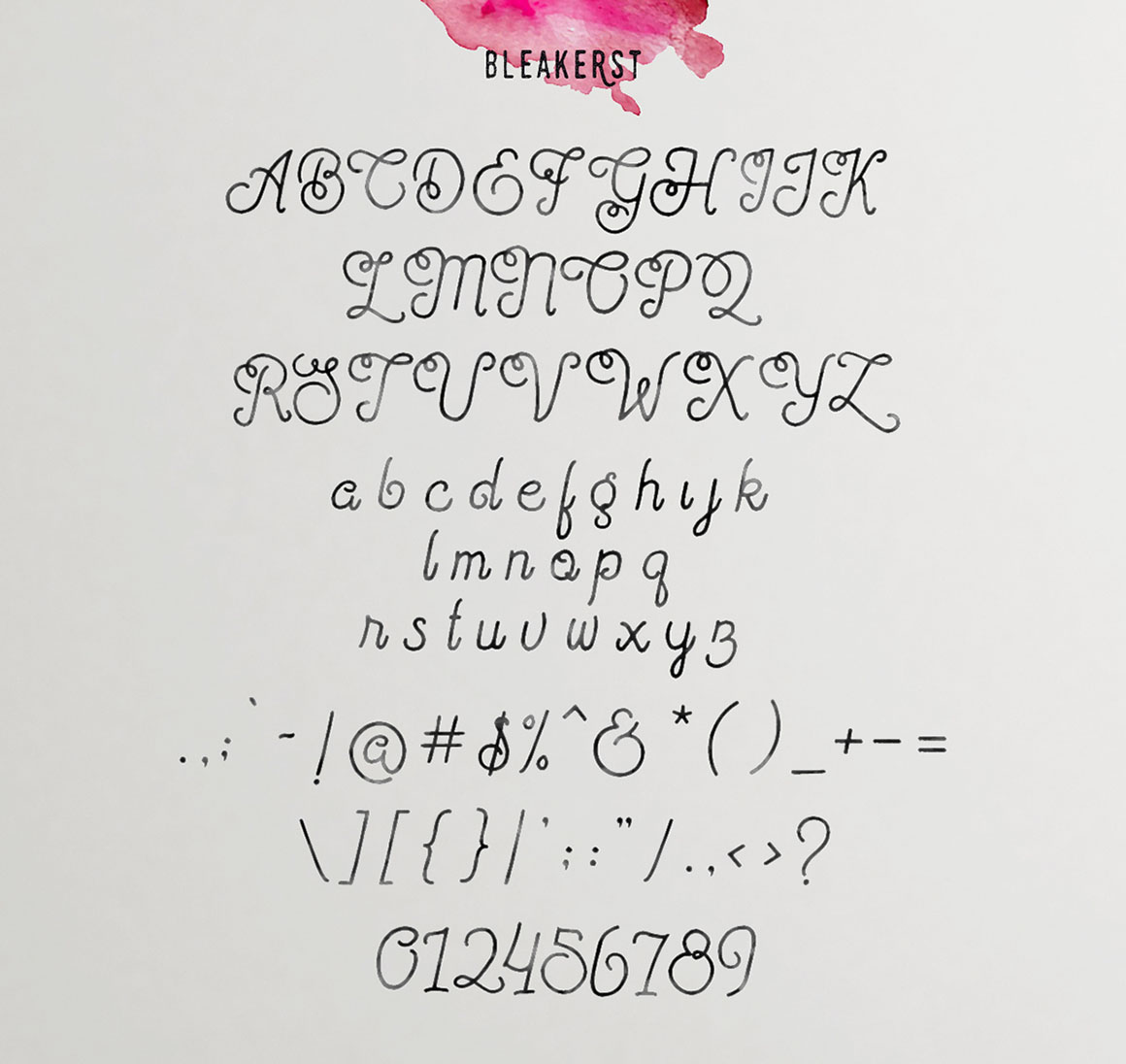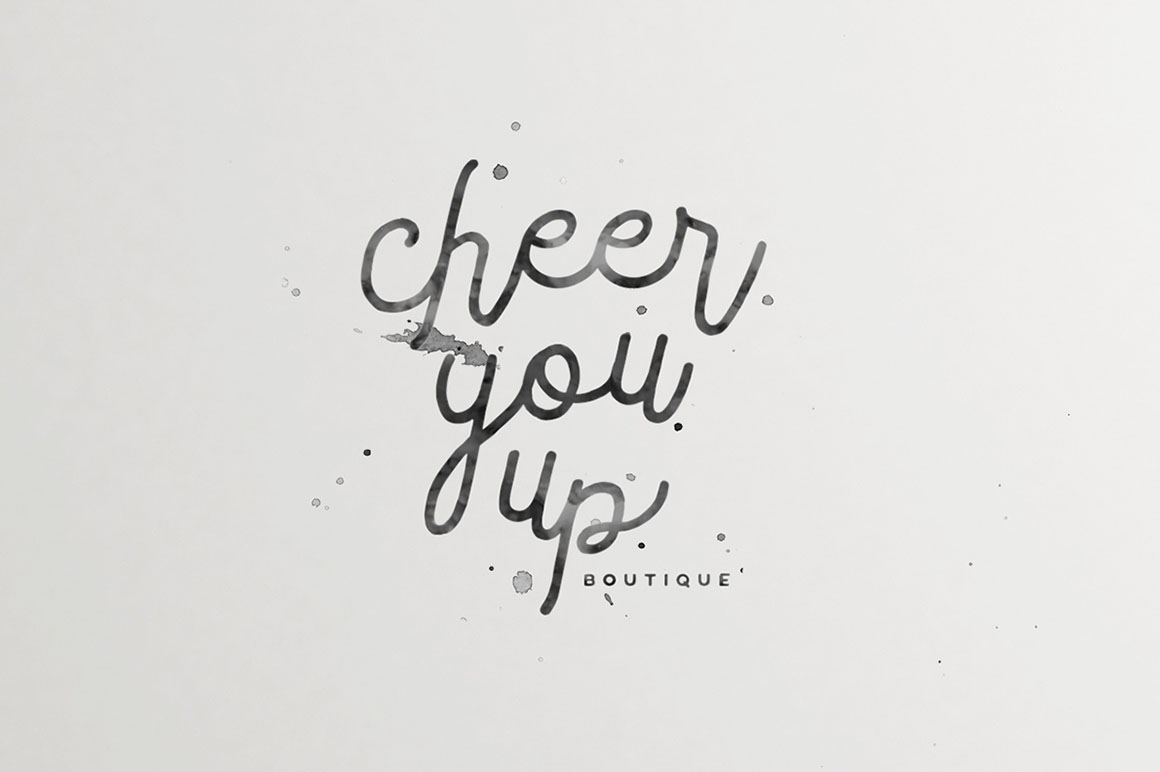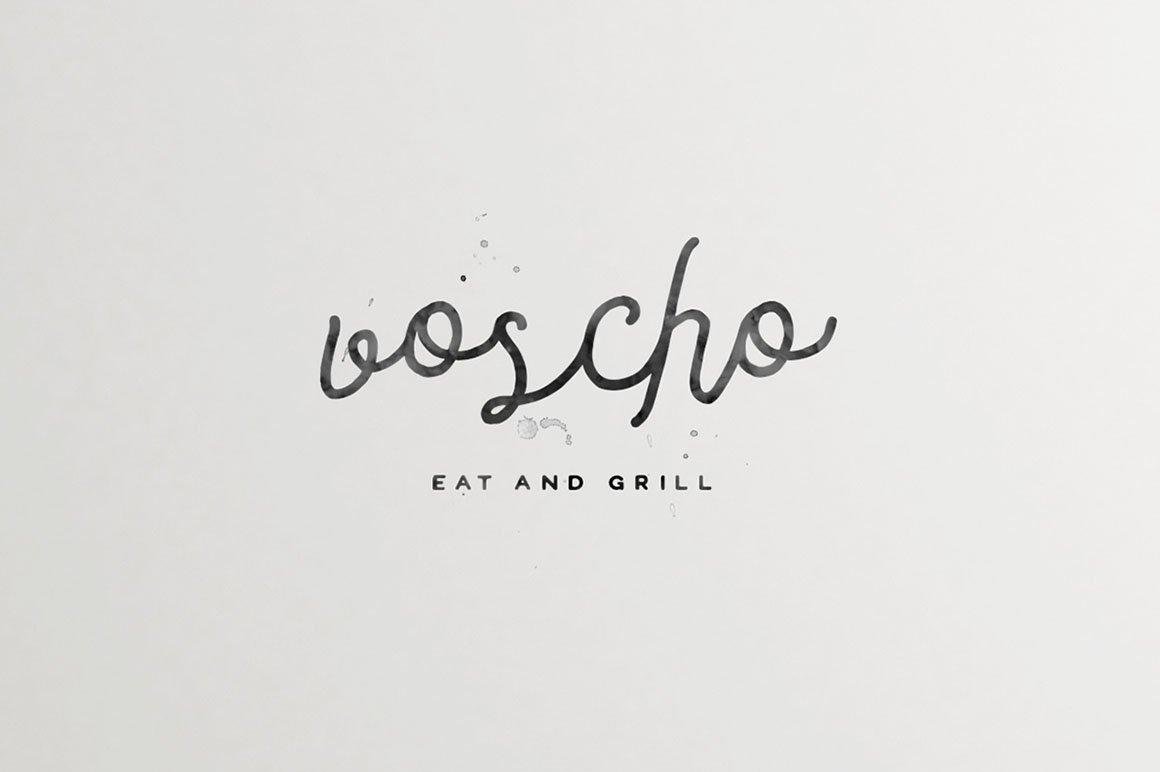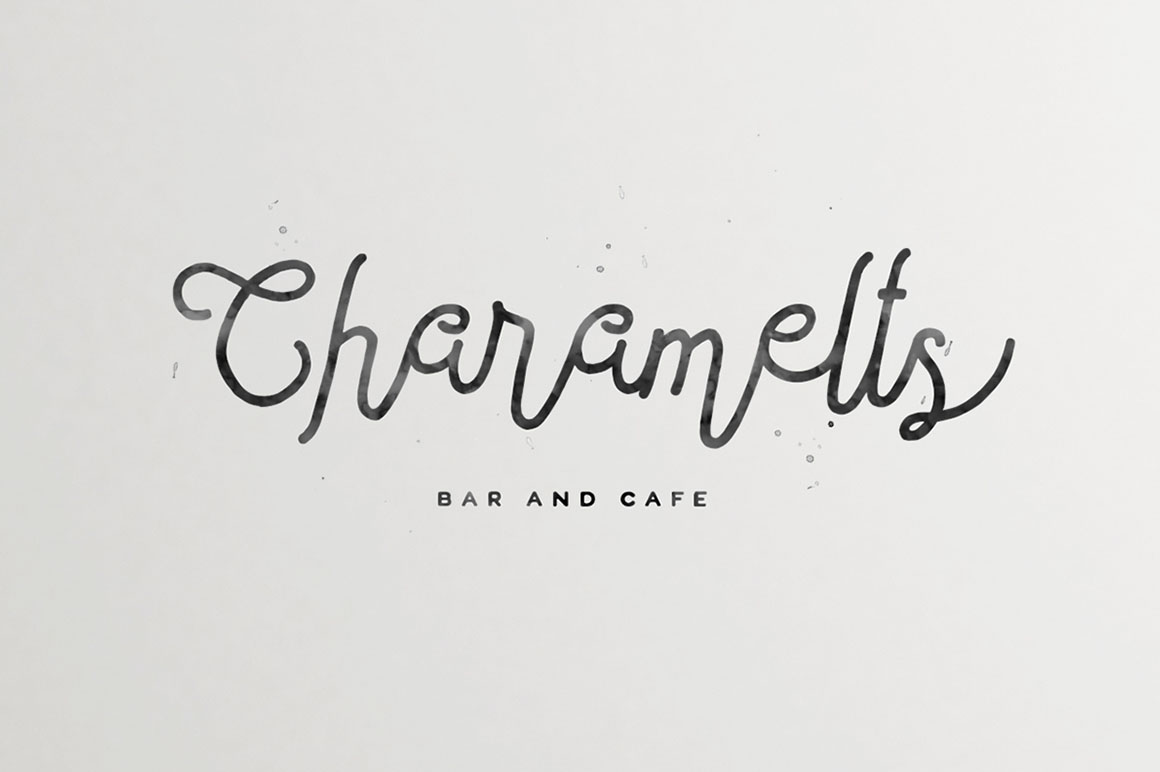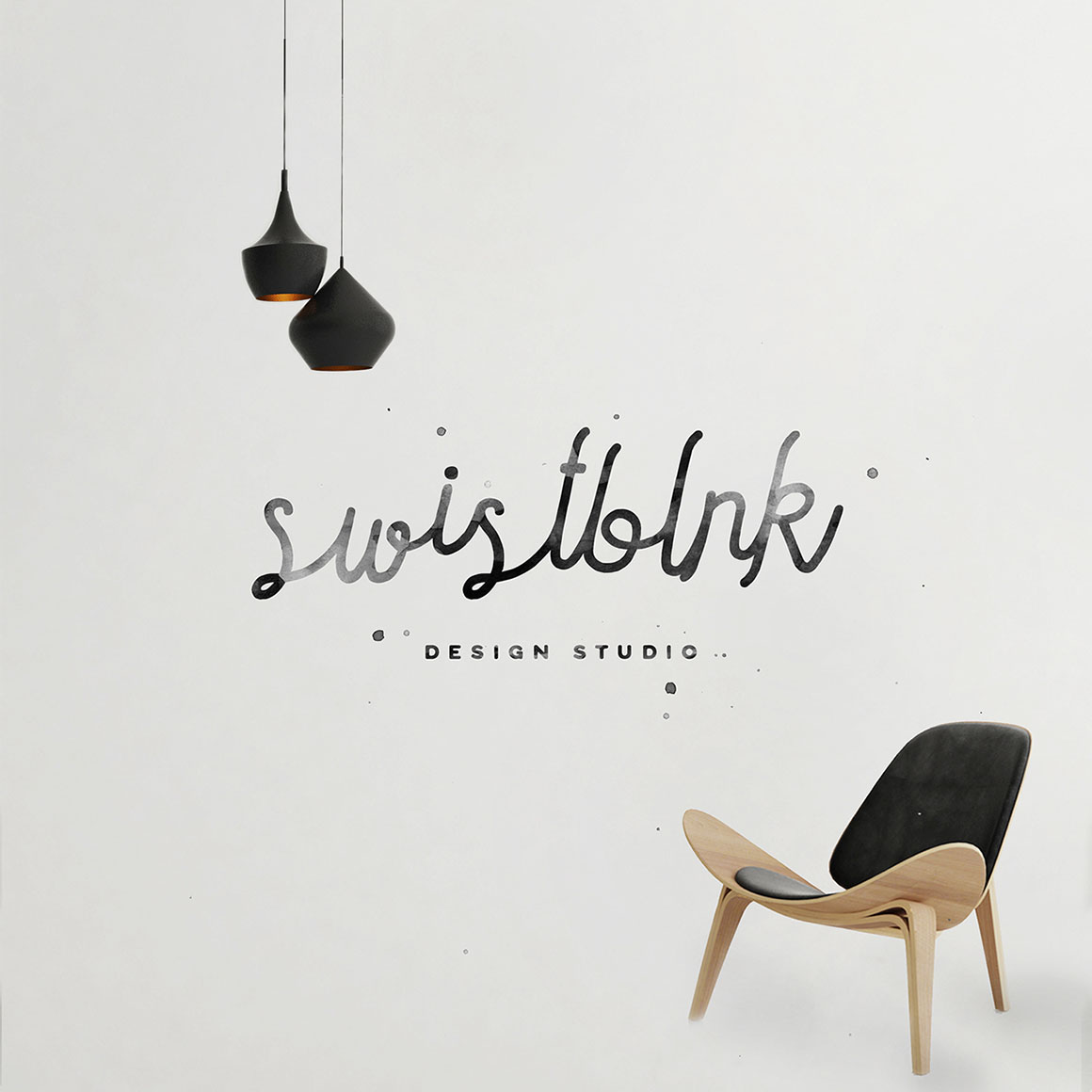
Bleakerst – Free Script Font
This unique cursive script custom font is from Agga Swist’blnk. Modern font with vintage touch. Great for your new log designs. Download and enjoy 😉